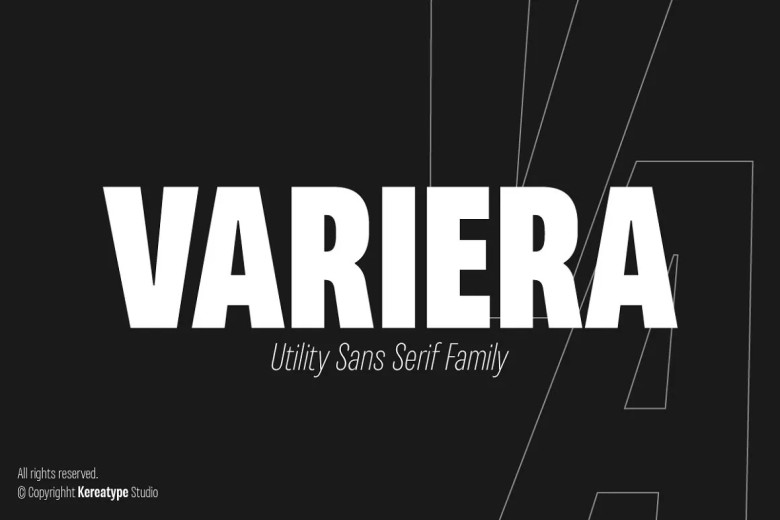
Variera Font
Geometric sans-serif typeface Variera is semi-condensed. As a naked object, Variera is a nine-weight typeface from Thin to Black having a respective italic. The italic font stands out in the headline with infinite appeal. Variera is a utility display type; it is flavor in motion.
Variera Geometric Sans Font Family